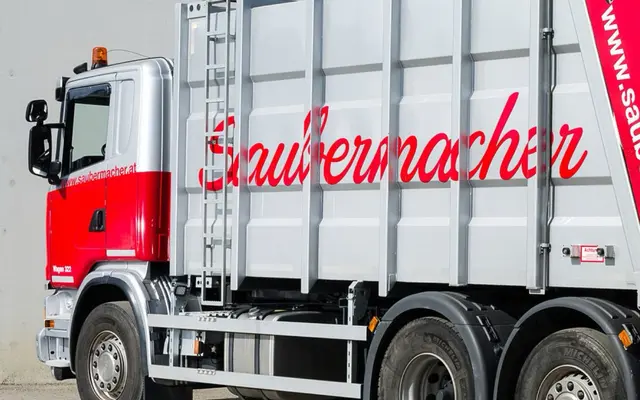
Sauber Script
A connected script with Cyrillic coverage, including Bulgarian and Serbian alternates, aimed at packaging and identity work.
Sauber Script is a connected cursive typeface from Typejockeys offering OpenType alternates for Bulgarian, Serbian and standard Cyrillic forms. The single Regular weight suits applications where a handwritten warmth is needed, from food packaging to brand identity. Its real-world usage across clients such as Saubermacher and Mautner Markhof points to a typeface comfortable in commercial and retail contexts.
A connected script typeface with Cyrillic support including Bulgarian and Serbian alternates, suggesting a cursive handwritten style suitable for packaging and branding contexts.